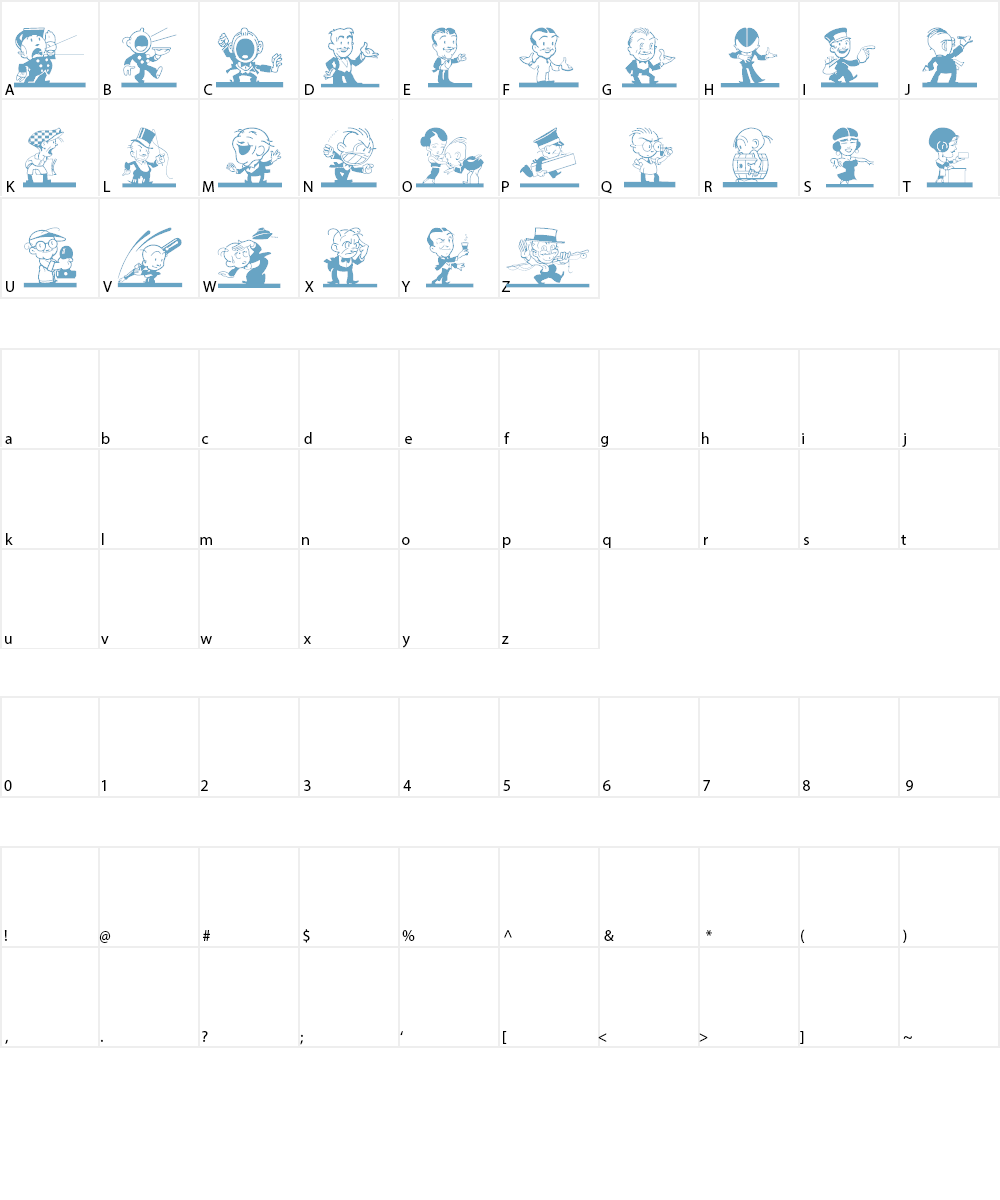
All aboard! They’re here — those wacky little bigheaded guys found in “mortised cuts” from the thirties are now appearing in this dingbat font. Lovingly redrawn (not scanned) from authentic historic sources, these megalocephalic mugs will add warmth and charm to any project graced with their presence.